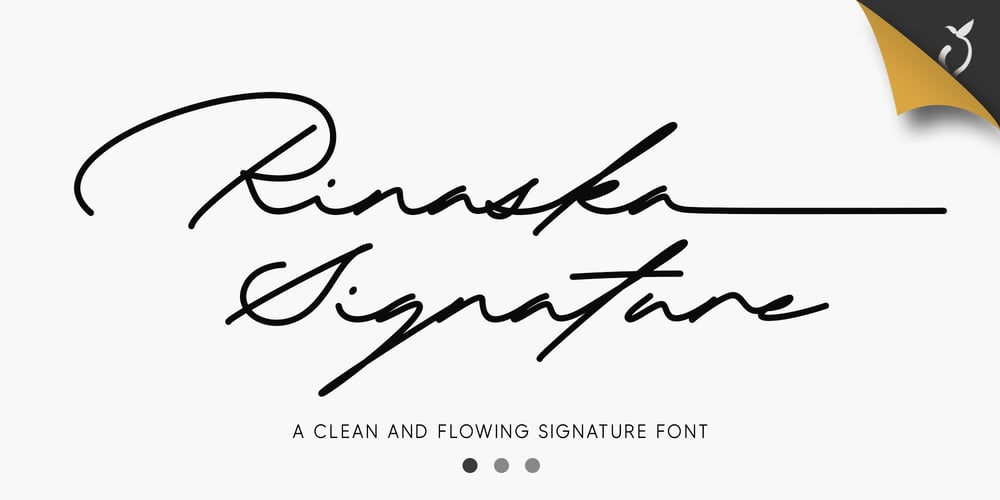
Rinaska Signature Font Family was designed by Dwi Ahidian and published by Lemonthe. Rinaska Signature contains 1 styles and family package options. Rinaska Signature is a signature font that combines clean lines with a natural and elegant flow. Designed with fine details, this font creates a modern yet professional impression. Equipped with stylistic sets and swashes, Rinaska Signature offers flexible style variations to support creative design. This font is perfect for various needs such as branding, invitations, logos, watermarks, digital signatures, or other creative projects. With its realistic appearance and graceful handwriting style, this font adds an authentic and charming touch.